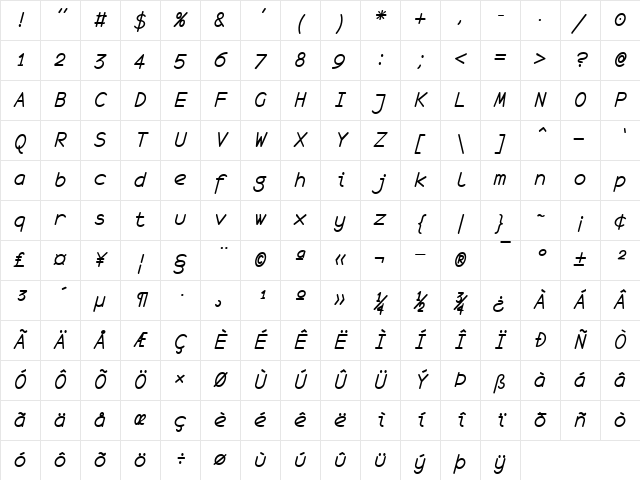
Monofuritalic NF italic Free Font
Monofuritalic NF italic
Style: italic
Design Context for Monofuritalic NF
Monofuritalic NF uses fixed-width spacing throughout, giving it the structured, systematic character associated with coding environments and technical documentation. The slanted form adds forward momentum and visual energy.
Pro Tip: Use Monofuritalic NF with slightly increased line-height for extended reading - fixed-width spacing can feel dense in longer passages without extra breathing room.